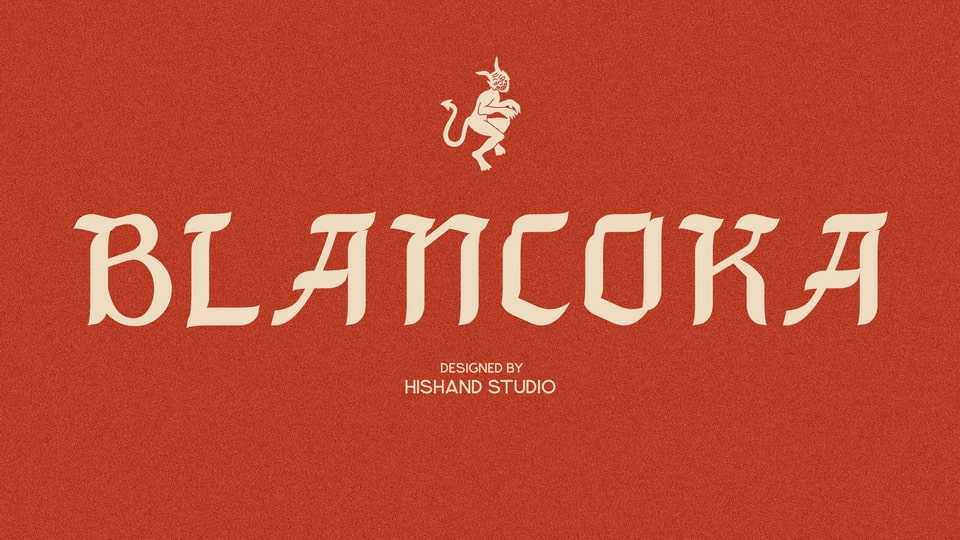
Download Blancoka font, a bold and expressive display typeface that captures the spirit of Mexico and the fiery soul of tequila. Blancoka blends traditional blackletter aesthetics with a modern Latin flair.